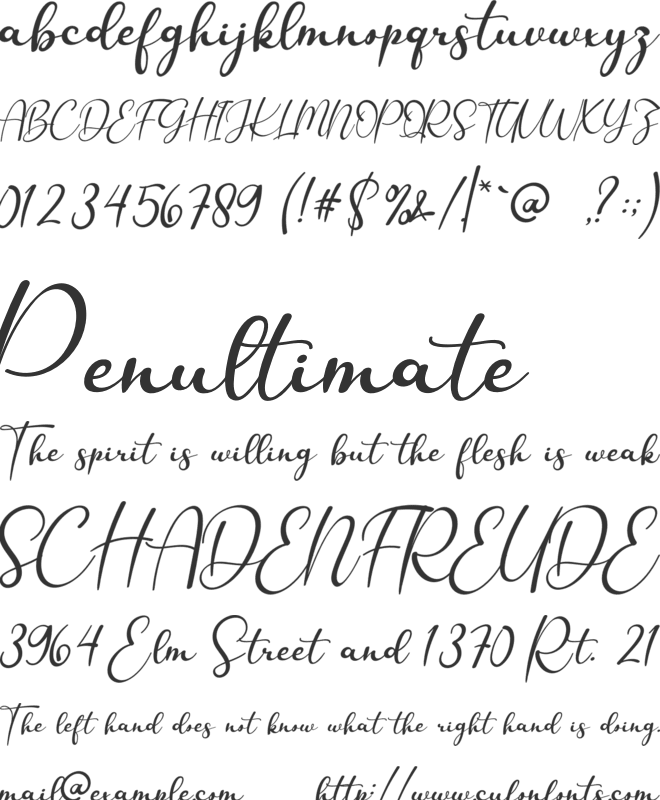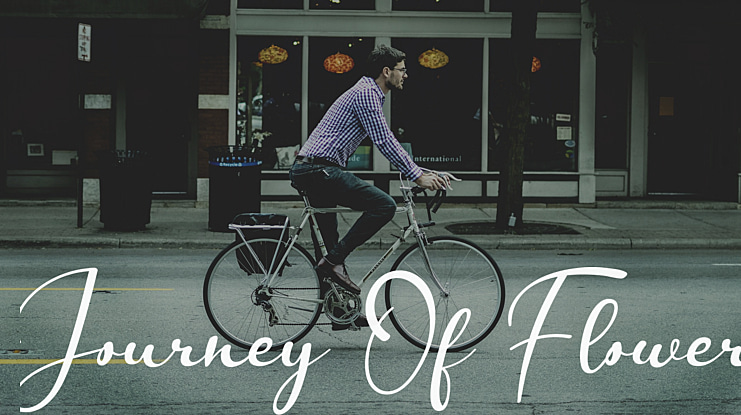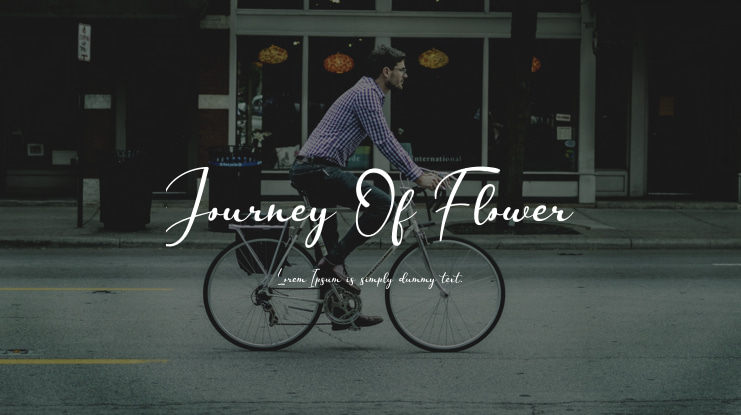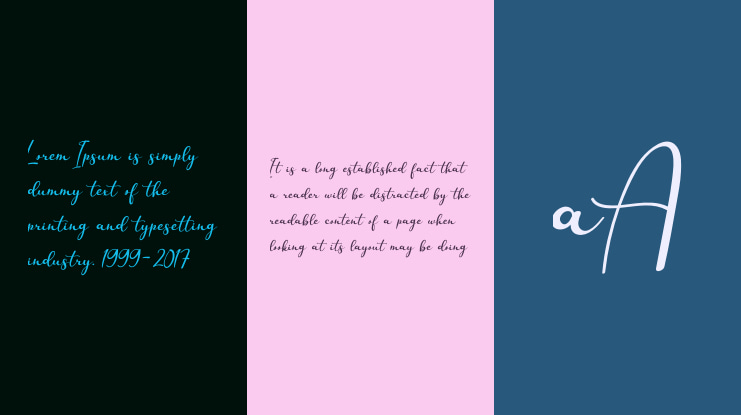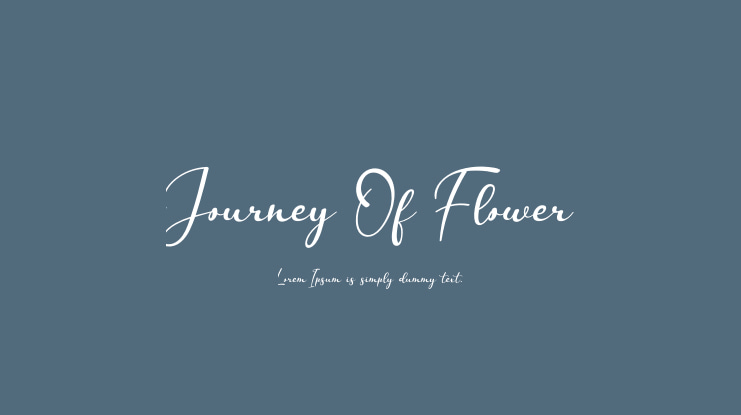
Journey Of Flower Font
Journey of Flower is a stylish and incredibly elegant script font. It looks stunning on wedding invitations, thank you cards, quotes, greeting cards, logos, business cards and every other design which needs a handwritten touch.